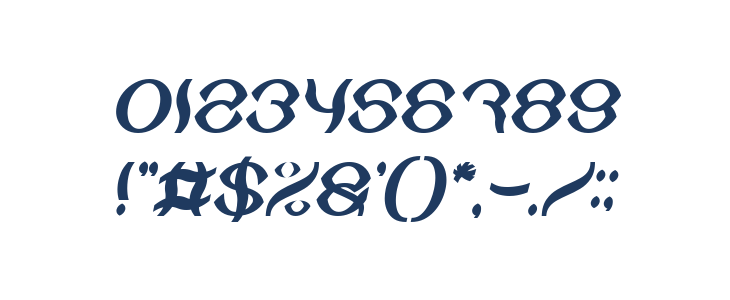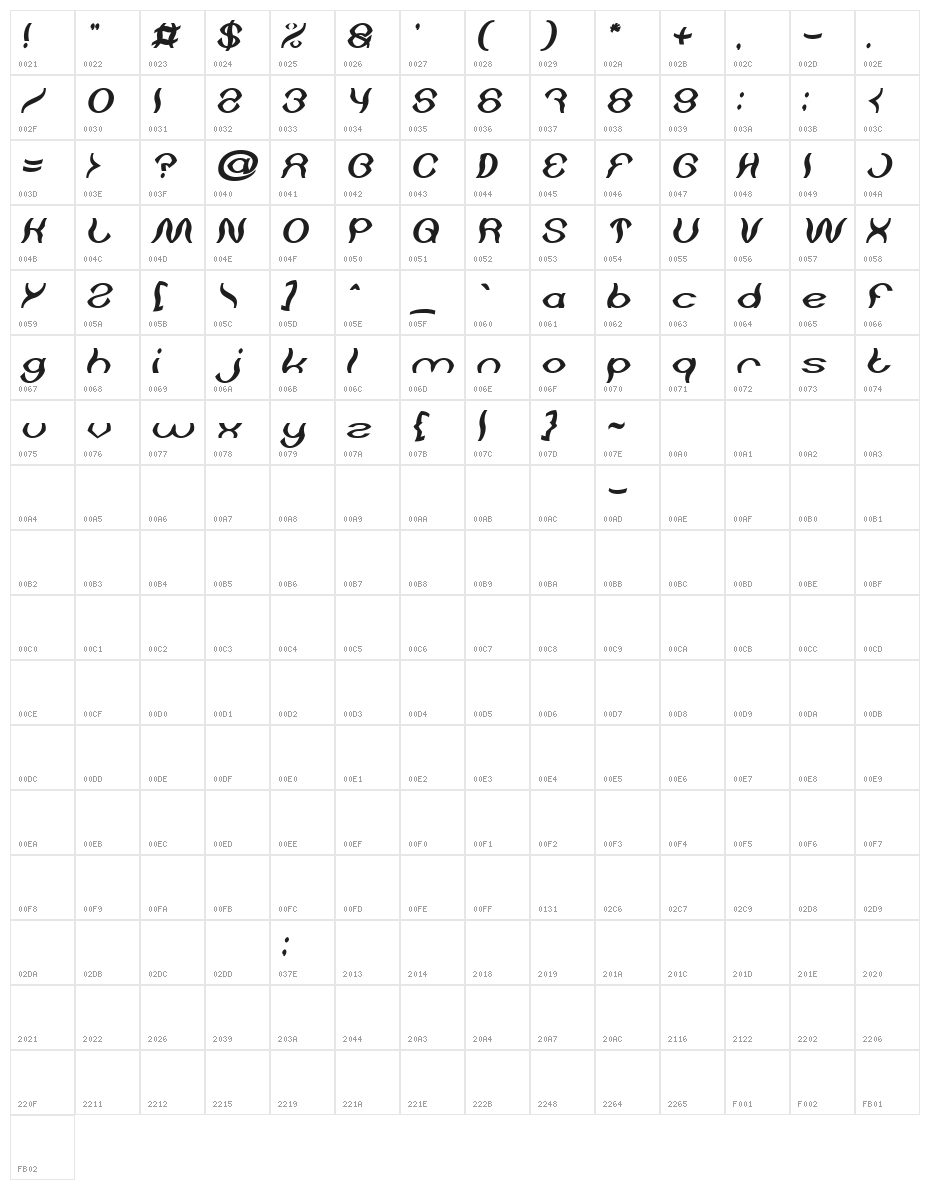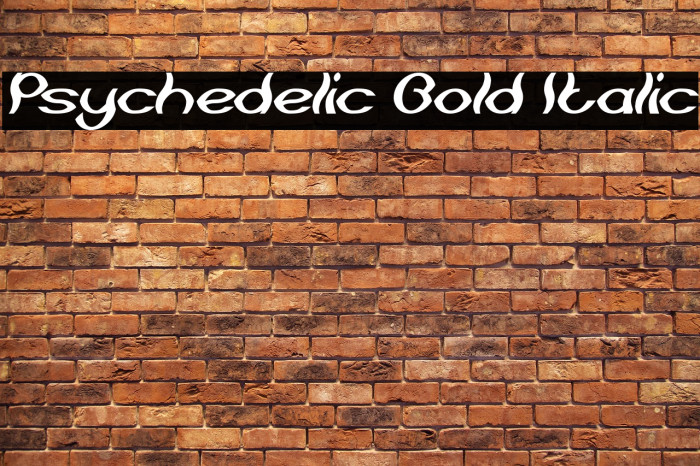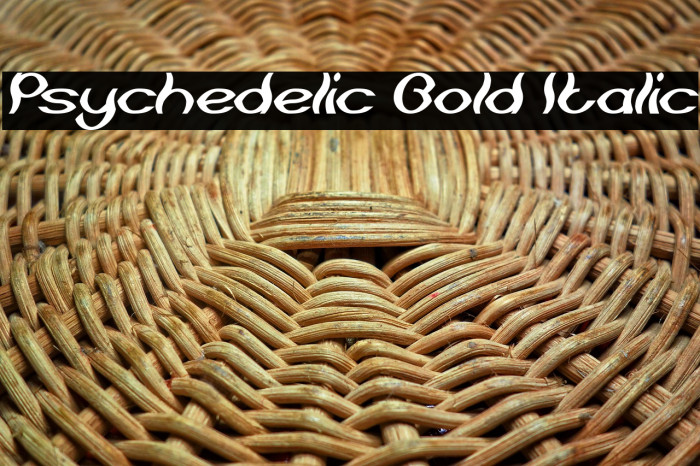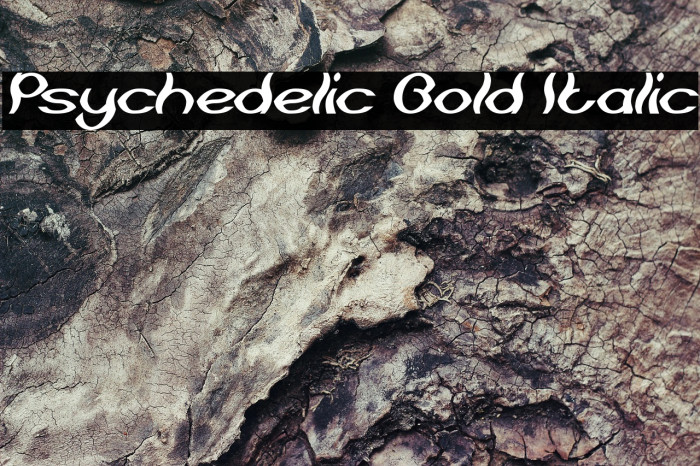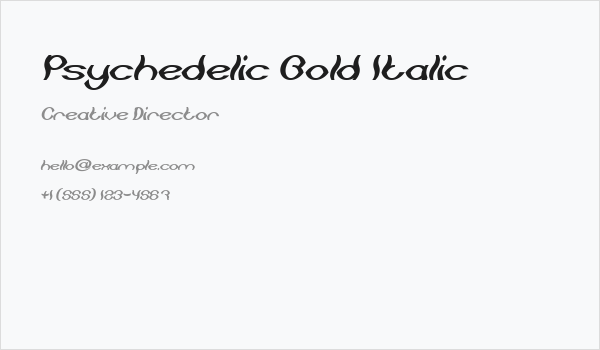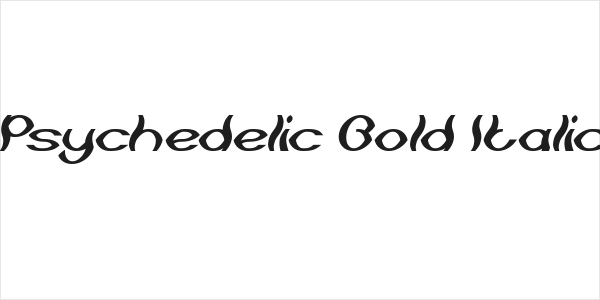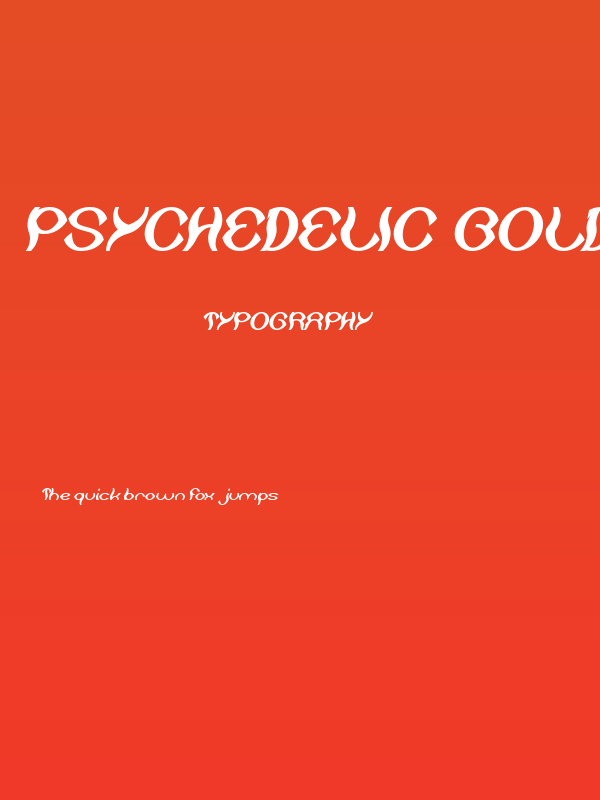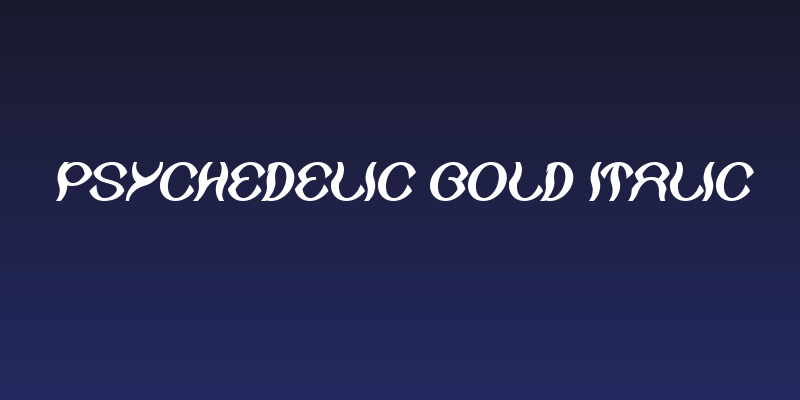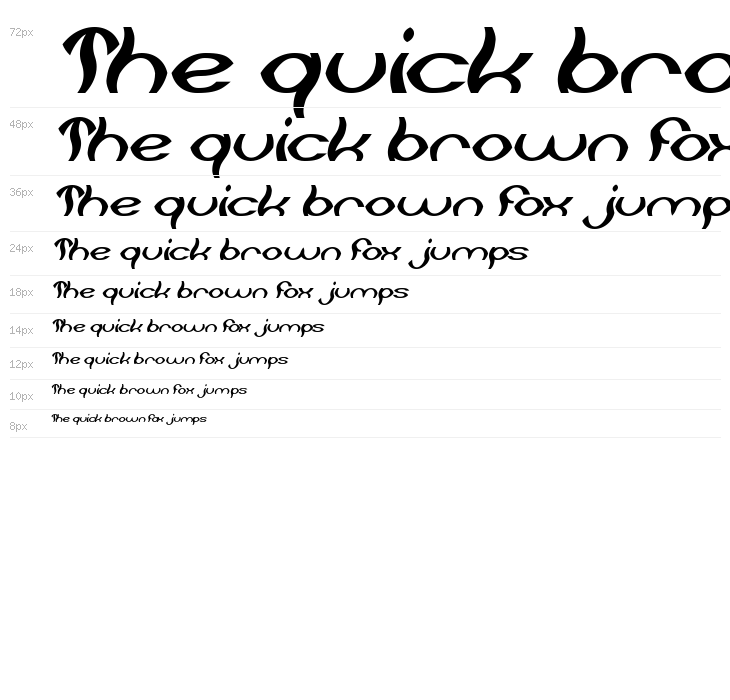
Psychedelic Bold Italic Font
Psychedelic Bold Italic Description
This font features a bold and italicized style with a distinctly psychedelic flair. The characters are designed with exaggerated curves and swirls, creating a sense of movement and fluidity. The uppercase and lowercase letters maintain a consistent style, with the lowercase letters slightly more condensed. Numbers and special characters follow the same whimsical design, ensuring a cohesive look across all text. The font's unique style makes it stand out, ideal for projects that require an eye-catching and unconventional appearance.
| Overall Style | Psychedelic, Decorative |
| Proposed Projects | Ideal for music festival posters, retro-themed designs, album covers, and creative branding projects. |